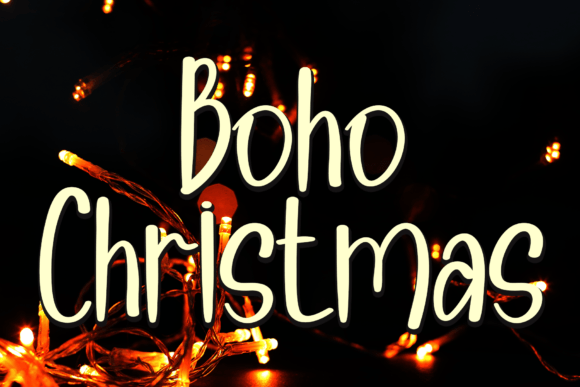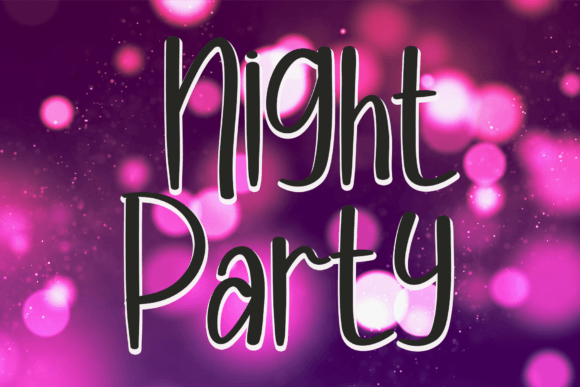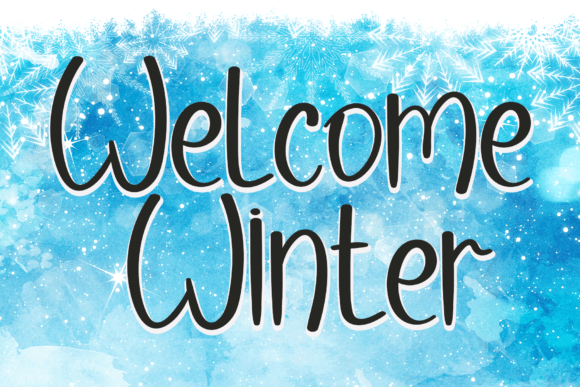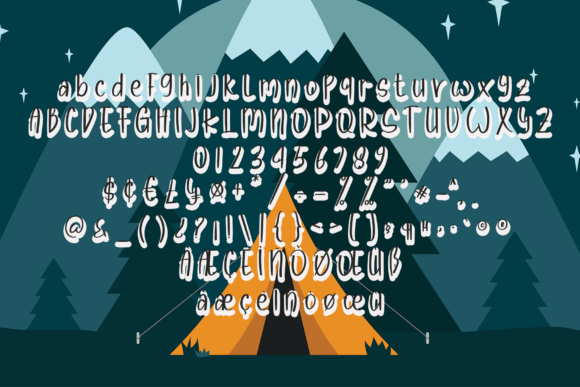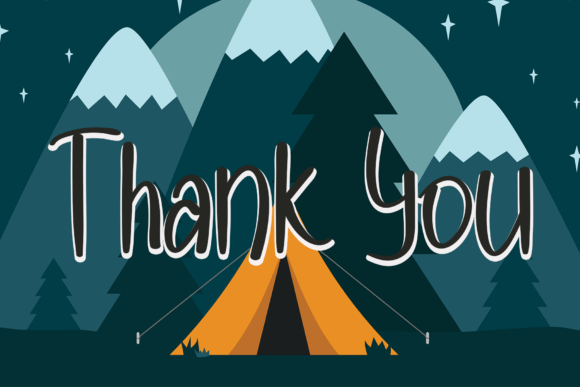
Boho Christmas Font
Add a simple and friendly touch with the Boho Christmas font. This handwritten script is perfect for a variety of creative projects. Whether you’re making crafts, digital designs, presentations, or greeting cards, this font is versatile and inviting.
The Boho Christmas font is designed to become your favorite go-to script. Its clean and casual style fits many occasions. You can use it for both personal and professional projects.
Each character is crafted with smooth and approachable lines. This creates a natural and polished look. The font balances readability with charm, making it ideal for logos, headlines, quotes, and decorative text.
Despite its simple style, the Boho Christmas font remains readable at various sizes. Whether used for bold titles or subtle accents, it adapts perfectly. Its versatility makes it great for many creative applications.
Using this font will help your projects stand out. It adds a friendly and approachable spirit. If you want your designs to look natural and polished, the Boho Christmasfont is an excellent choice.